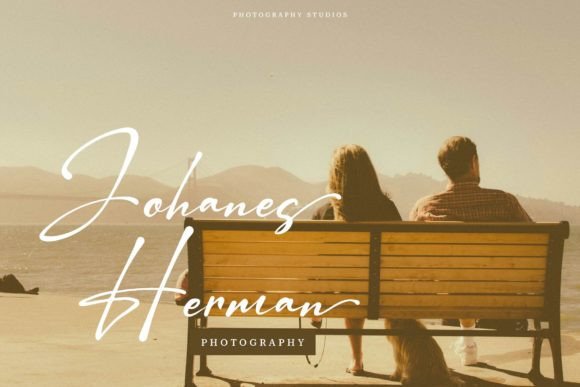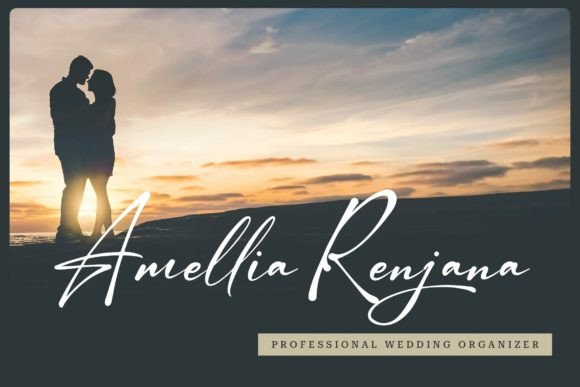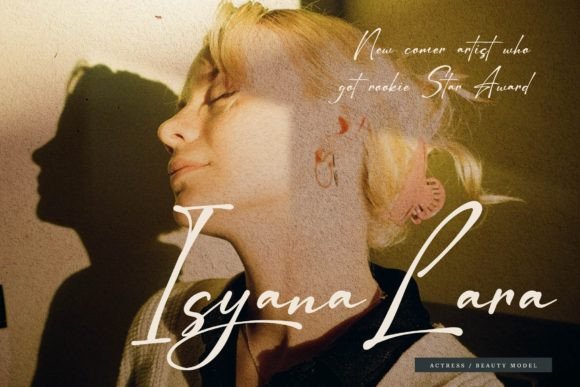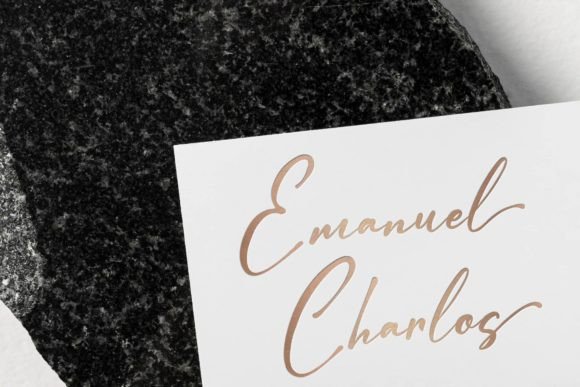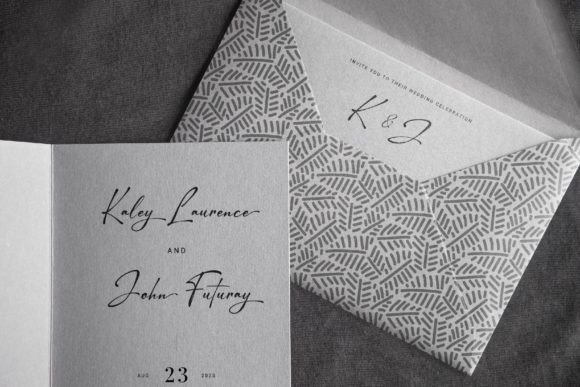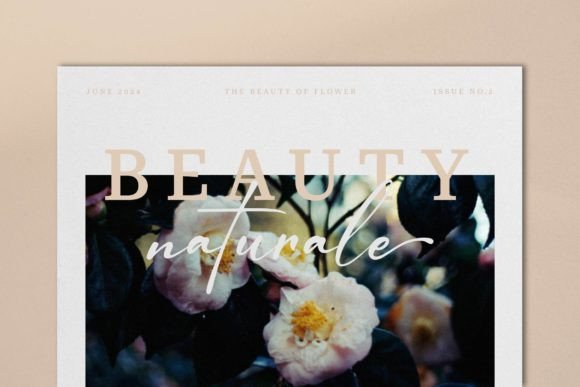
Introduction to Barettiny Monteilo Font
Barettiny Monteilo is a handwritten font, suitable for any projects such as logos, branding projects, homeware designs, product packaging, mugs, quotes, posters, shopping bags, t-shirts, book covers, name card, invitation cards, greeting cards, label, photography, watermark, special events, and all your other lovely projects that need a handwritten script taste.
Barettiny Monteilo is a handwritten font, suitable for any projects such as logos, branding projects, homeware designs, product packaging, mugs, quotes, posters, shopping bags, t-shirts, book covers,
Key Features of Barettiny Monteilo Font
Why Choose Barettiny Monteilo Font?
Barettiny Monteilo Font offers exceptional quality and versatility, making it a valuable addition to your design toolkit. Whether you’re creating for personal projects or commercial use, Barettiny Monteilo Font delivers professional results.